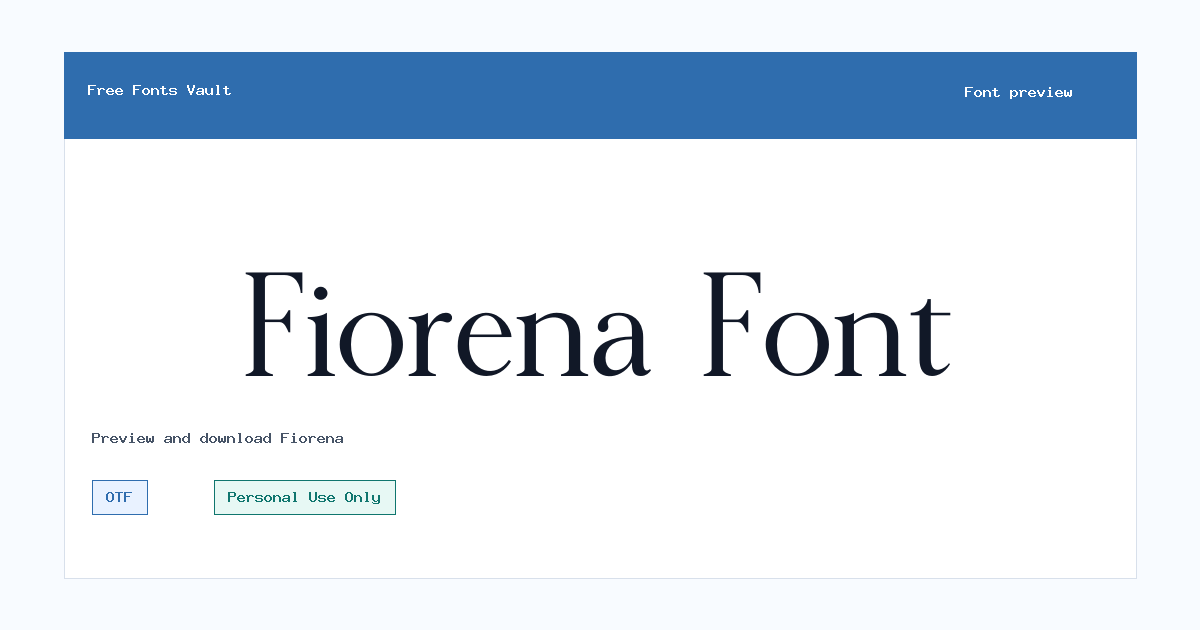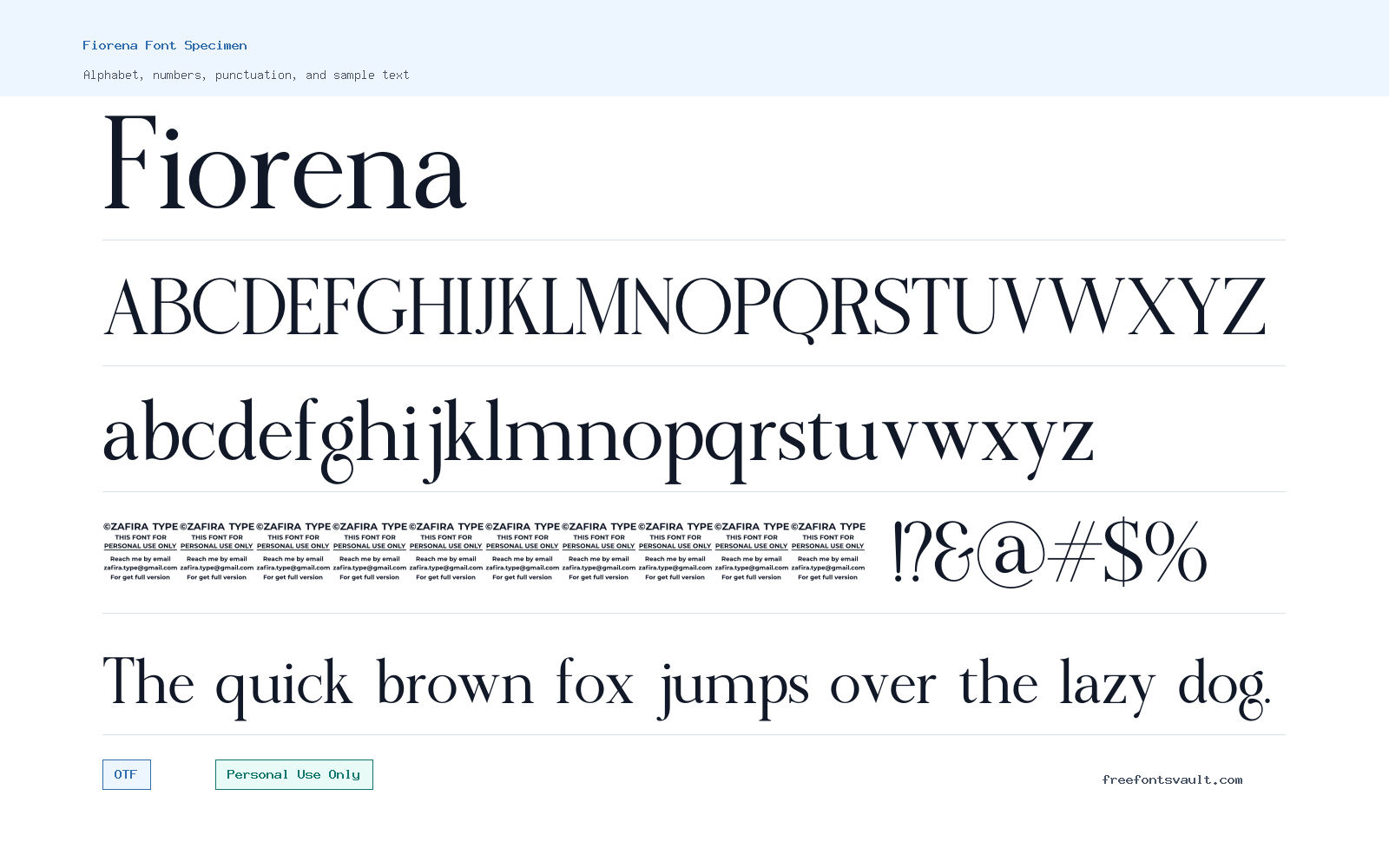
Fiorena
- Designer Zafira Type
Fiorena is a serif font with a polished, decorative feel, suited to short pieces of text where the lettering can be noticed. It comes as a regular OTF font file and is marked for Personal Use Only.
Fiorena works best when you want a serif style that feels elegant without needing a large font family. Because the available style is a regular weight, it is most useful for headings, name treatments, invitations, quote graphics, social posts, boutique-style labels, and other display settings. The serif structure gives it a more refined tone than a plain sans serif, while the single-weight setup keeps the choice simple: use it where one clear display style is enough.
Before downloading, try Fiorena in the preview tool with the actual words you plan to use. Test uppercase, lowercase, short phrases, numbers, and any punctuation you need, because decorative serif fonts can change character from one word to the next. For longer paragraphs, use a simpler text face alongside it and keep Fiorena for titles or accents. Pair it with a clean sans serif for menus, descriptions, captions, or body copy so the design stays readable. Also check spacing at smaller sizes, especially if you plan to use it on mobile graphics or narrow layouts.
- Serif display character suited to titles, branding drafts, invitations, and short decorative text.
- Logo mockups, name designs, packaging drafts, and boutique-style headings.
- Invitations, quote images, social media titles, and other short text compositions.
Use Fiorena where the font can be large enough to show its serif details. For websites, documents, and layouts with longer reading sections, combine it with a simpler body font. If you are preparing a client project, product, logo, template, advertisement, or any monetized work, verify the license first rather than assuming commercial use is allowed.
What style of font is Fiorena?
Fiorena is a serif font in a regular, normal-weight style. It is better suited to display text than long reading passages.
Who designed Fiorena?
Fiorena is listed with Zafira Type as the designer.